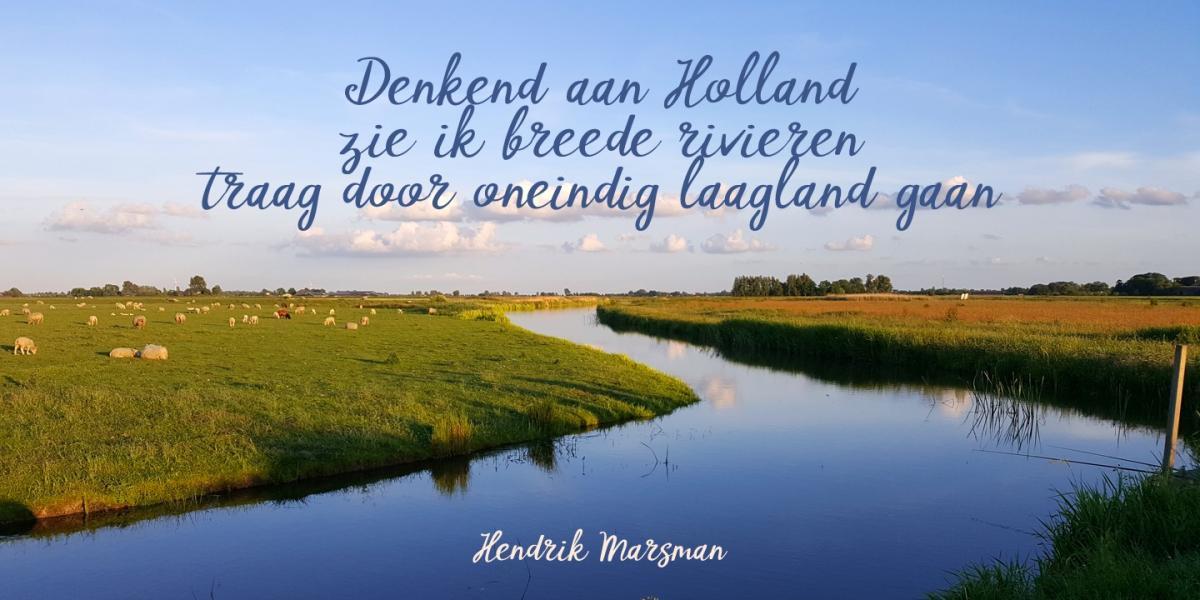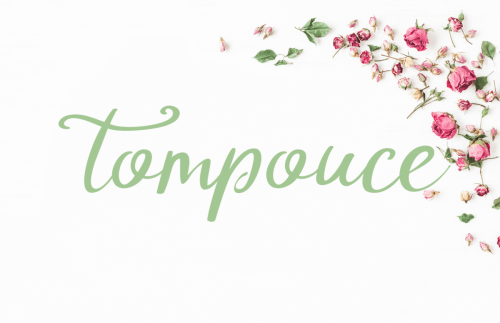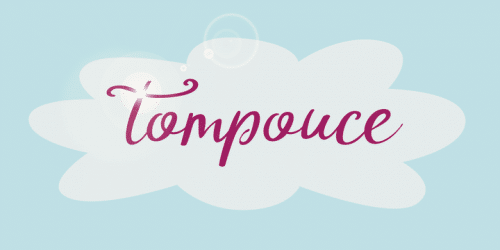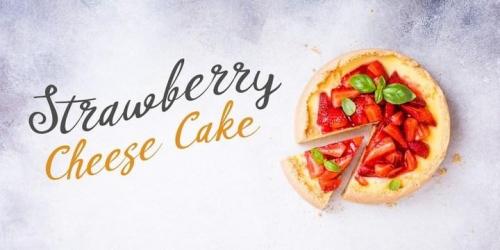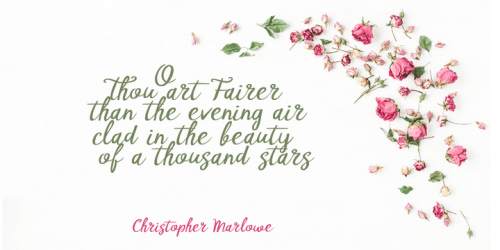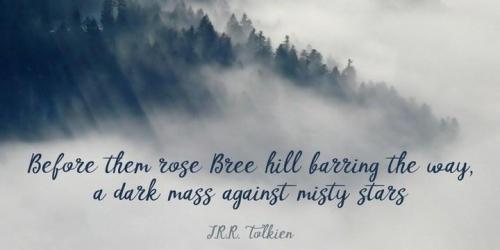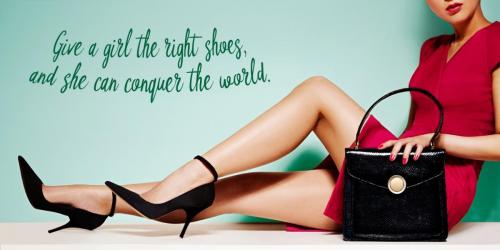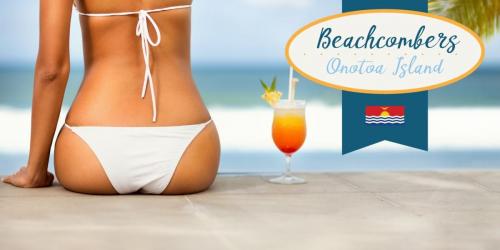
DK Tompouce Font is a new dramatic scenario. A Tompouce (also know as Tompoes) is a typical Dutch pastry. It consists of a thick layer of pastry cream, sandwiched between two layers of puff pastry.
It usually comes with pink icing, except on the king’s birthday, when the icing is orange. Tompouce is also a very nice connected script, with a lot of curly letters, some double letter ligatures and all the diacritics you can throw a pastry at.
If it is an elegant, yet fun connected script you’re looking for, well… Tompouce may just be what you need!